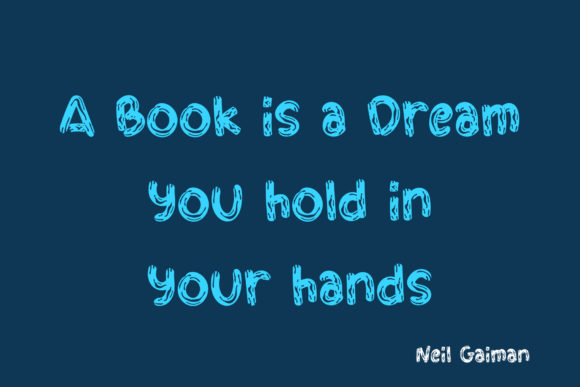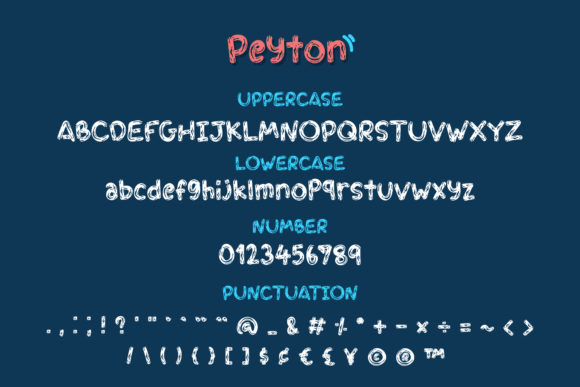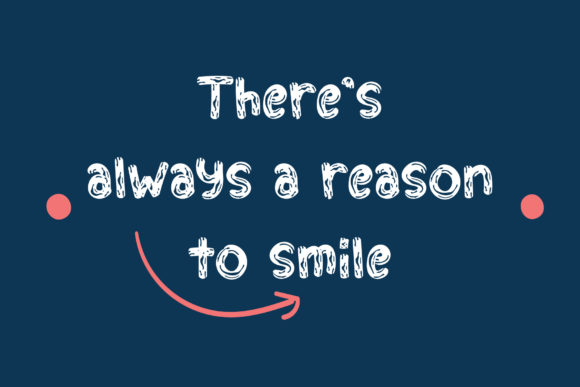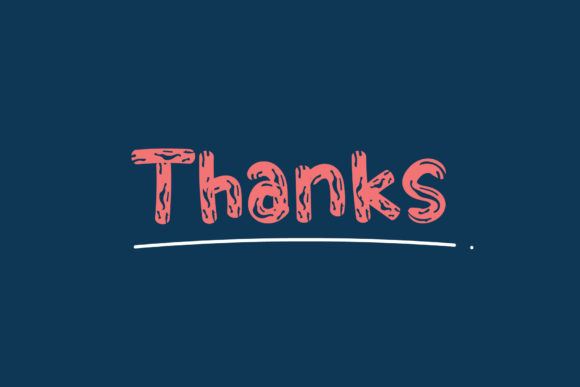
Introduction to Peyton Font
Peyton embodies fun, quirkiness and authenticity.
This enchanting display font will turn any creative idea into a true standout .
Key Features of Peyton Font
Why Choose Peyton Font?